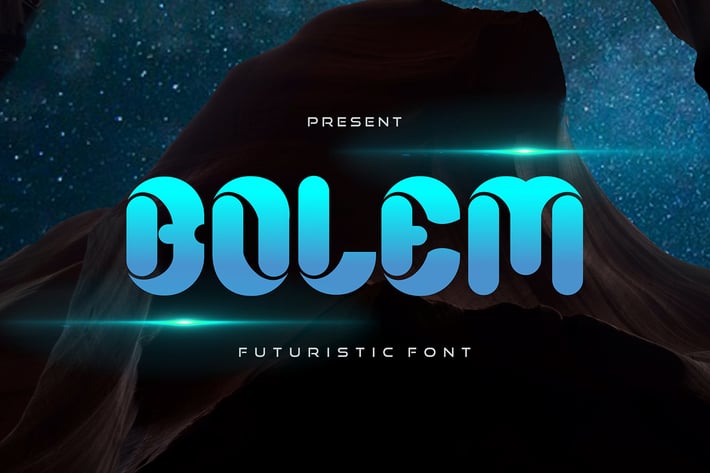
Bolem - Futuristic Font
Bolem is a Rounded and Futuristic Display Font. The font is ready to be used for your Futuristic or sci-fi-related projects.
Built to be perfect for headlines, logos, branding, posters, packaging, advertising, and much more.